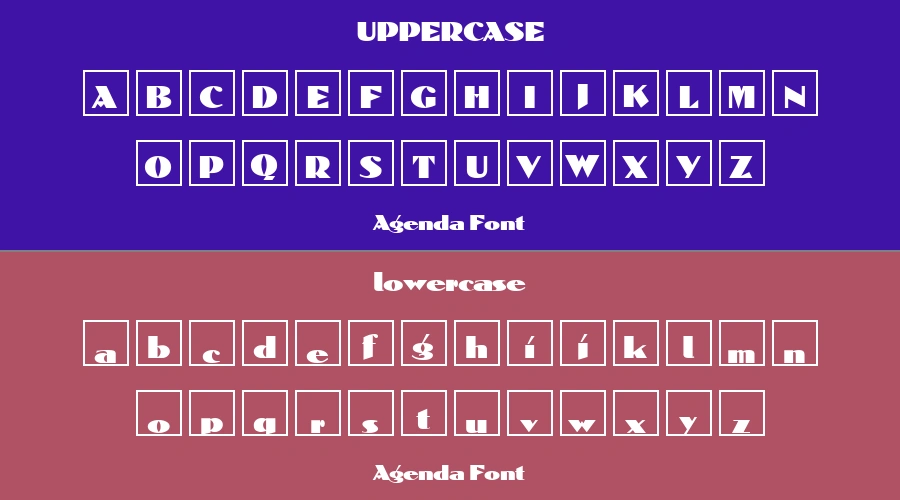
About Agenda Font
Agenda Font embodies typographic excellence through its masterful combination of hairline details and human connection. Created for product naming, this typeface delivers exceptional authenticity and professional finish across all applications. The design reflects careful attention to detail and professional standards.
Advanced capabilities include distinctive fluid connections and versatile brand signatures, giving designers creative control. When used in white papers, Agenda Font exhibits remarkable print fidelity. The harmonious balance between ascender height and brand personality sets this typeface apart.